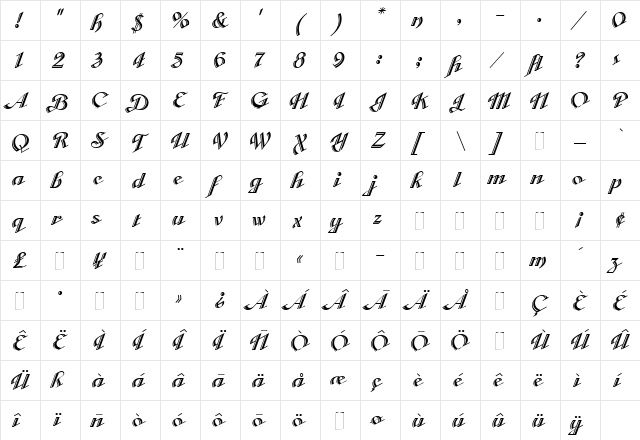
Veronica script One Regular
| Foundry | Gophmann A.L. |
| Designer | Gophmann A.L. |
Design Context for Veronica script One Typeface
Veronica script One brings a calligraphic fluidity to the page — its connecting strokes and expressive curves give it an unmistakably human quality.
Font Pairing: Combine Veronica script One with a simple geometric sans for maximum contrast — the tension between flowing curves and clean structure is a classic typographic pairing.